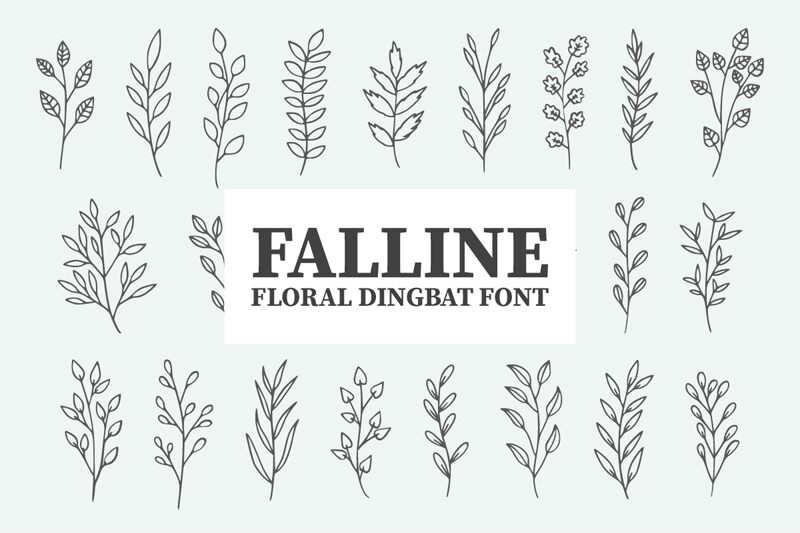
Falline, the captivating nature-inspired dingbat font, designed by Muhammad Yafinuha, is a delightful addition to any creative project.
With its intricate floral symbols and ornamental motifs, this font is perfect for adding a touch of whimsy and elegance to invitations, greeting cards, and wedding stationery. The enchanting Falline font can also be used in scrapbooking projects or as decorative elements in blog posts and social media graphics.
Let your imagination run wild as you explore the endless possibilities of this enchanting dingbat font.